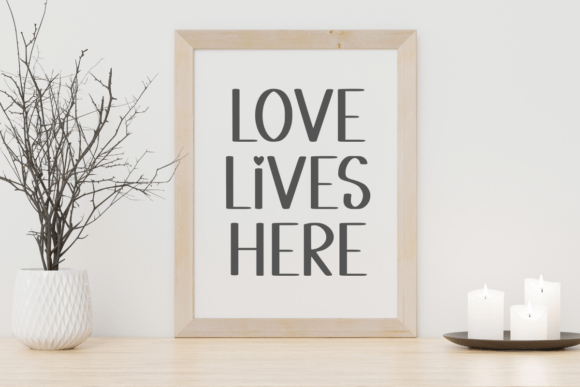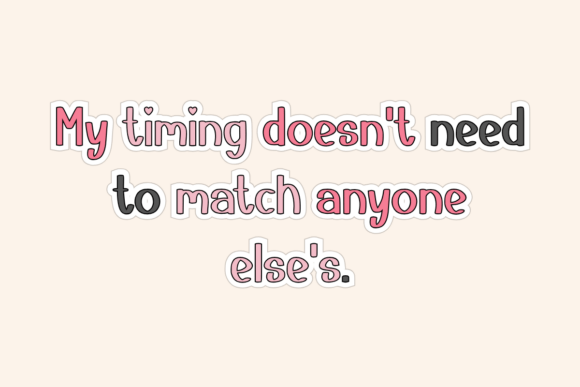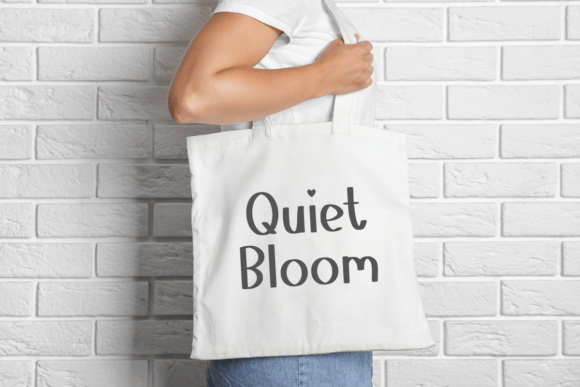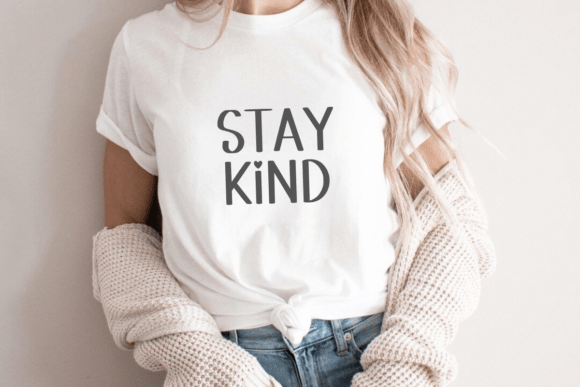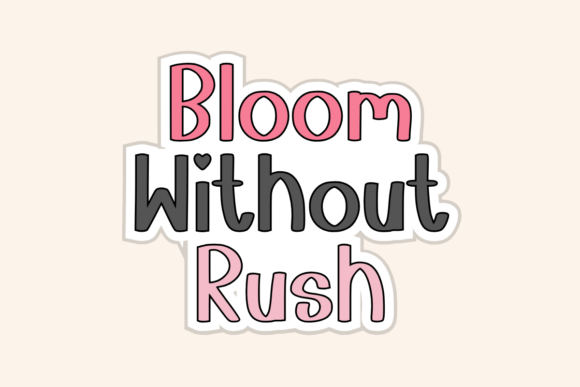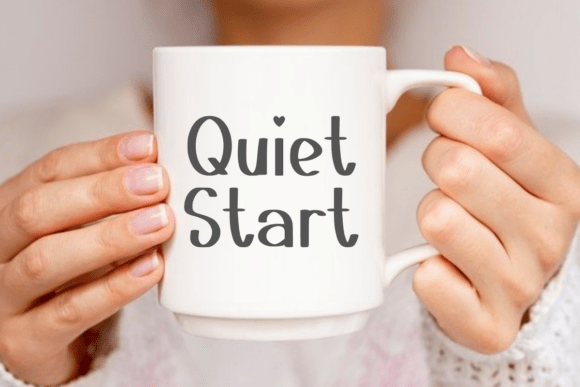
Dreaming Handwriter Font: The Perfect Choice for Crafty Designs
Are you a crafter, designer, or DIY enthusiast looking for a font that can add a personal touch to your projects? Look no further than the Dreaming Handwriter font. This adorable sans serif handwriting font is designed to bring a soft, friendly, and natural look to your designs, making it perfect for a wide range of creative projects.
What Makes Dreaming Handwriter Special?
Dreaming Handwriter is a cute and charming font that is designed to mimic the look of handwritten text. Its simple strokes and smooth curves make it easy to read and use in a variety of designs. The font’s soft and friendly appearance makes it perfect for projects that require a personal touch, such as craft projects, planners, stickers, kids’ worksheets, and classroom printables.
Perfect for Crafting Moms and DIY Enthusiasts
Dreaming Handwriter is a great choice for crafting moms and DIY enthusiasts who love working with adorable handwritten styles. The font’s warm and handcrafted feeling makes it perfect for creating unique and personalized designs that are sure to stand out. Whether you’re making greeting cards, kids’ labels, coloring pages, or worksheets, Dreaming Handwriter is the perfect choice.
Easy to Use with Cricut and Silhouette
One of the best things about Dreaming Handwriter is that it’s easy to cut using Cricut and Silhouette machines. The font’s simple strokes and smooth curves make it easy to work with, even for beginners. This means you can create beautiful and intricate designs with ease, making it perfect for crafters and DIY enthusiasts of all levels.
Dreaming Handwriter is a versatile font that can be used in a wide range of designs, including:
- Quotes: Add a personal touch to your inspirational quotes and sayings with Dreaming Handwriter.
- Greeting cards: Create beautiful and heartfelt greeting cards for special occasions.
- Kids’ labels: Make labeling fun and easy with Dreaming Handwriter’s cute and playful style.
- Coloring pages: Add a personal touch to your coloring pages and make them more engaging for kids.
- Worksheets: Create fun and interactive worksheets for kids with Dreaming Handwriter.
- Bullet journals: Add a personal touch to your bullet journals and make them more visually appealing.
- Scrapbooks: Create beautiful and memorable scrapbooks with Dreaming Handwriter.
- Playful graphic projects: Use Dreaming Handwriter to create fun and playful graphic projects, such as posters, flyers, and brochures.
Why Choose Dreaming Handwriter?
There are many reasons why Dreaming Handwriter is the perfect choice for crafty designs. Here are just a few:
- Unique and personalized: Dreaming Handwriter adds a personal touch to your designs, making them unique and one-of-a-kind.
- Easy to use: The font’s simple strokes and smooth curves make it easy to use, even for beginners.
- Versatile: Dreaming Handwriter can be used in a wide range of designs, from craft projects to graphic projects.
- Adorable: The font’s cute and playful style makes it perfect for projects that require a fun and playful touch.
Dreaming Handwriter is a charming and versatile font that is perfect for crafty designs. Its soft and friendly appearance, simple strokes, and smooth curves make it easy to use and perfect for a wide range of creative projects. Whether you’re a crafting mom, DIY enthusiast, or designer, Dreaming Handwriter is the perfect choice for adding a personal touch to your designs. So why wait? Download Dreaming Handwriter today and start creating beautiful and unique designs that are sure to stand out.